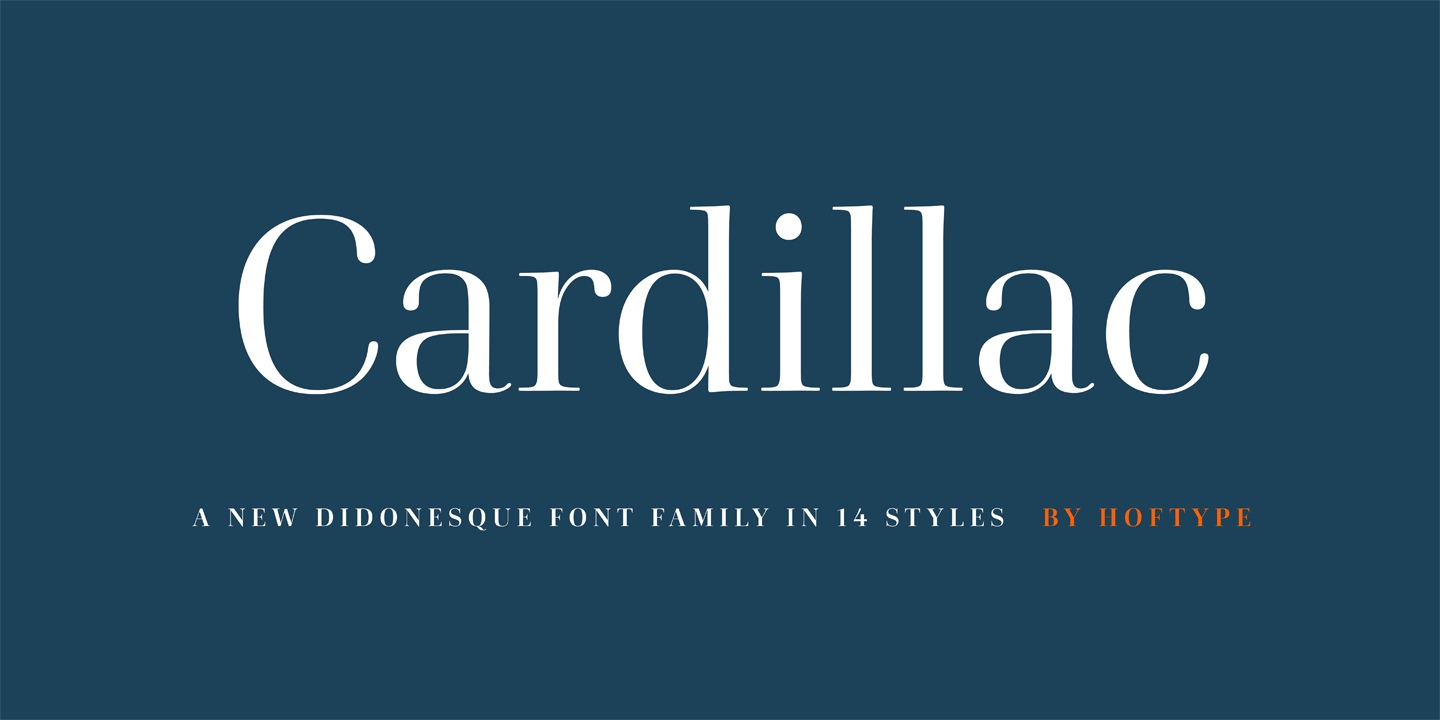
Cardillac Font is perfect for luxury automotive branding, premium car dealerships, high-end transportation services, elite racing teams, luxury lifestyle brands, exclusive club signage, prestige vehicle marketing, vintage car events, and sophisticated automotive publications.
Cardillac Font is exciting because it embodies the elegance and prestige of classic American luxury automobiles with its sophisticated letterforms that capture the essence of automotive excellence and timeless style. Its distinctive character design evokes the golden age of luxury motoring, making it perfect for brands that want to communicate premium quality, heritage craftsmanship, and exclusive automotive distinction.
The Cardillac Font family includes Light, Regular, Medium, Bold, Black weights, elegant Italic variations, Condensed styles, Extended versions, Classic alternates, and Luxury ornaments, providing designers with comprehensive tools for creating distinguished automotive brands that resonate with luxury car enthusiasts and premium market segments.
Cardillac Font Free Download delivers exceptional automotive typography that honors the legacy of luxury vehicle design while serving modern premium branding needs. This prestigious typeface combines classical elegance with contemporary functionality, creating a distinctive visual language that appeals to discerning automotive audiences and luxury lifestyle consumers who appreciate quality and refinement.
Whether you're developing luxury car brands, designing premium automotive marketing, creating exclusive dealership materials, or producing high-end transportation communications, Cardillac Font provides the prestigious foundation needed for successful luxury positioning. Its sophisticated character makes it particularly effective for luxury car manufacturers, premium auto services, exclusive racing events, and upscale automotive publications.
Perfect for automotive marketers, luxury brand designers, dealership communications teams, and creative professionals working with premium automotive clients, this font offers the distinguished qualities essential for successful luxury automotive branding. The typeface's versatility ensures consistent elegance across showroom displays, premium advertising, and exclusive event materials.
Cardillac Font includes comprehensive automotive character sets, luxury design elements, and refined spacing that guarantees superior performance in premium automotive applications. Its prestigious approach to typography makes it indispensable for brands competing in luxury automotive markets. Drive luxury branding excellence with Cardillac Font Free Download and create typography that defines automotive prestige.